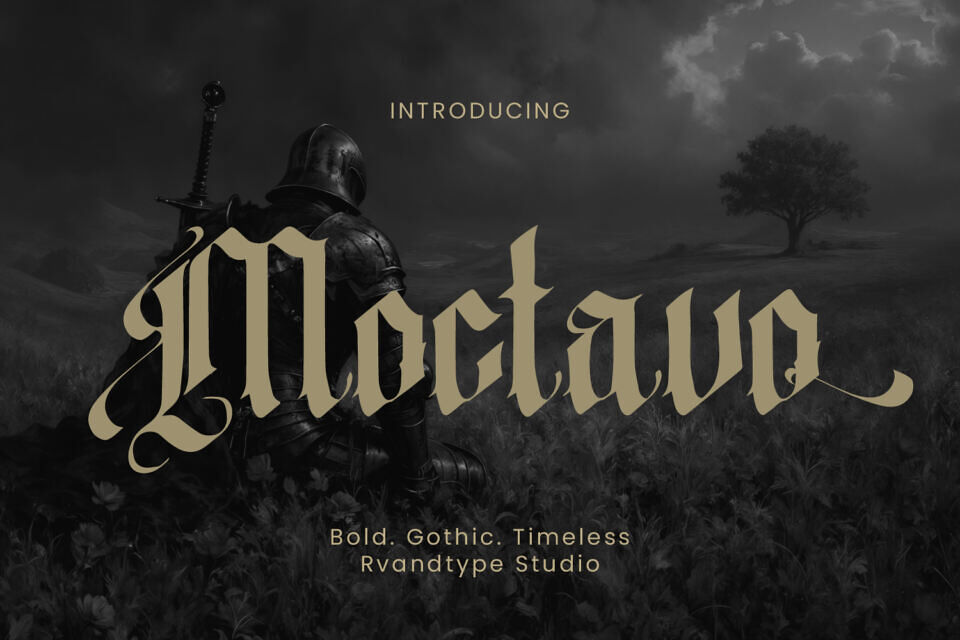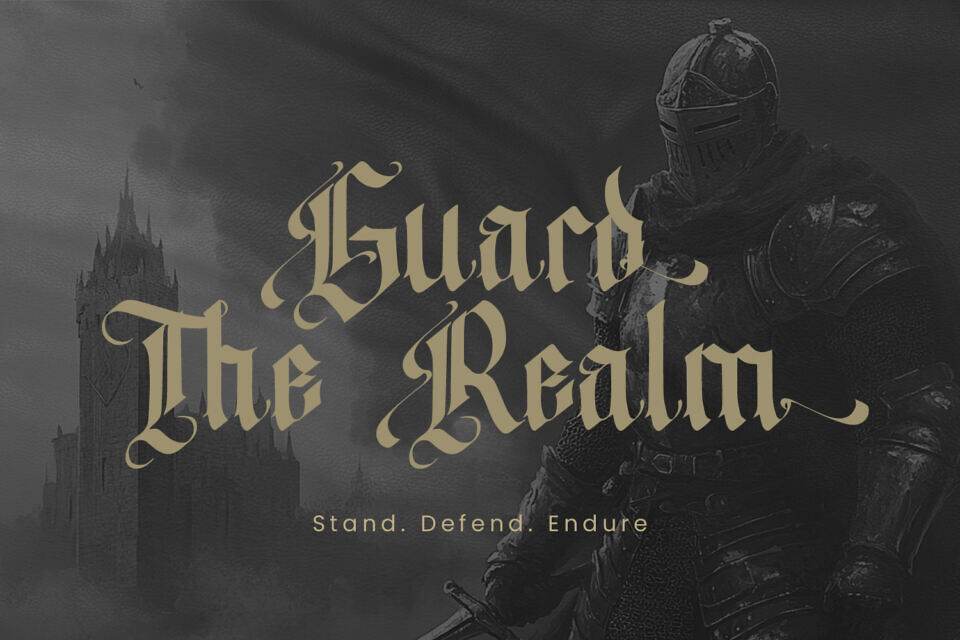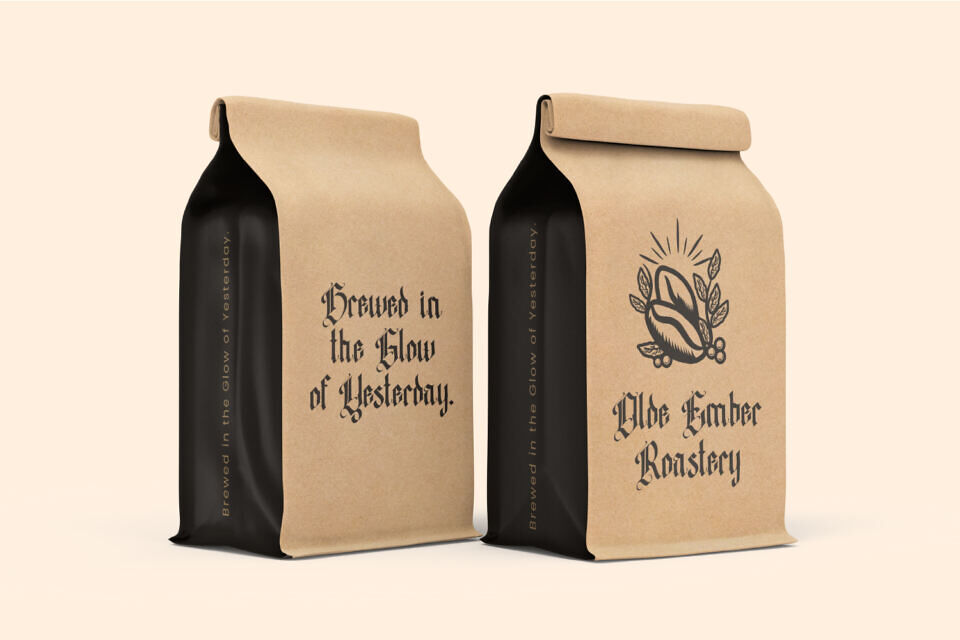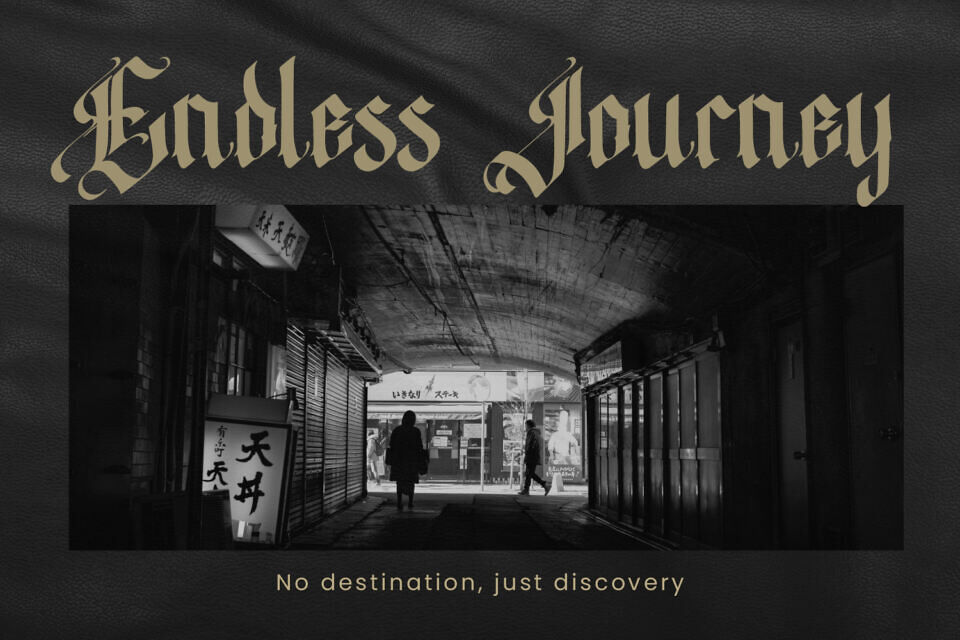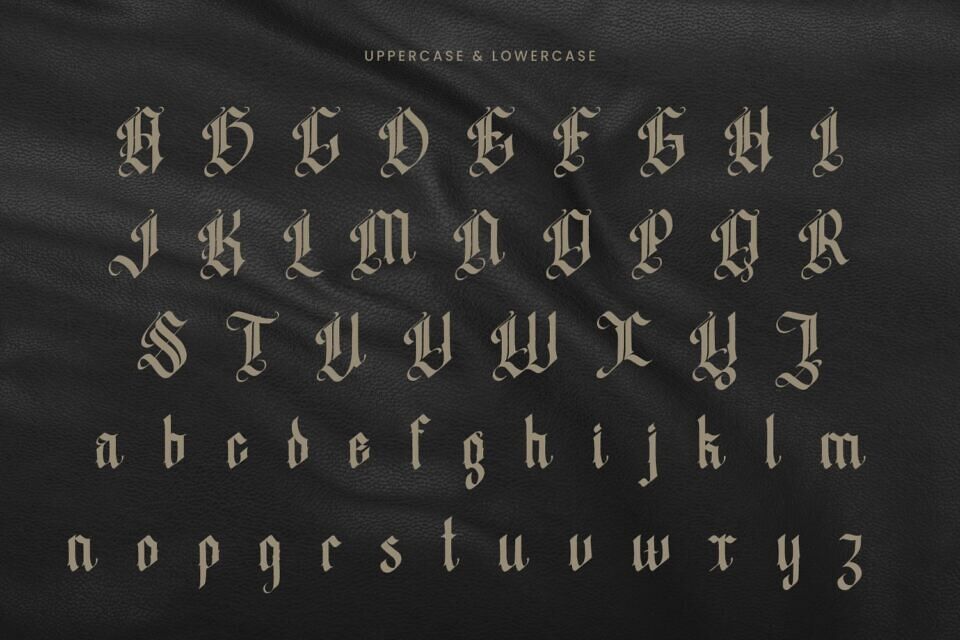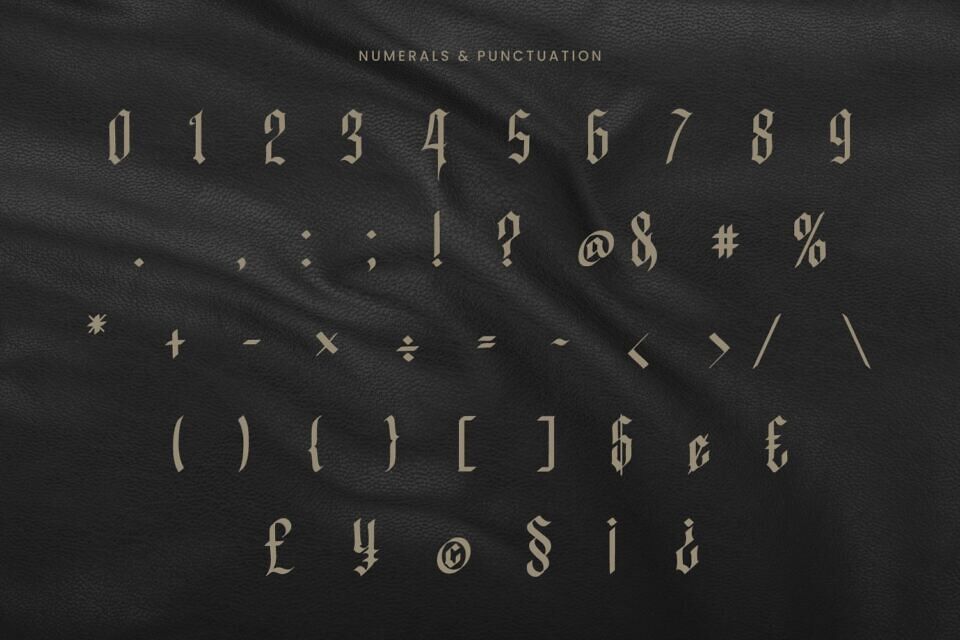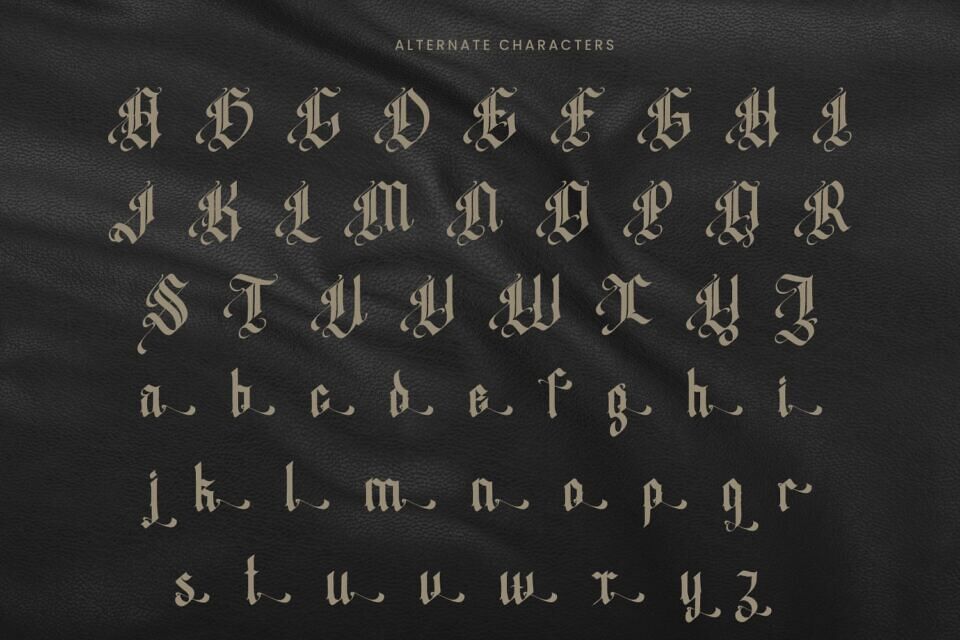
Moctavo is a blackletter display font that blends traditional gothic aesthetics with a bold, contemporary edge. Designed for impact, this typeface brings a strong character and unique presence to any visual project.